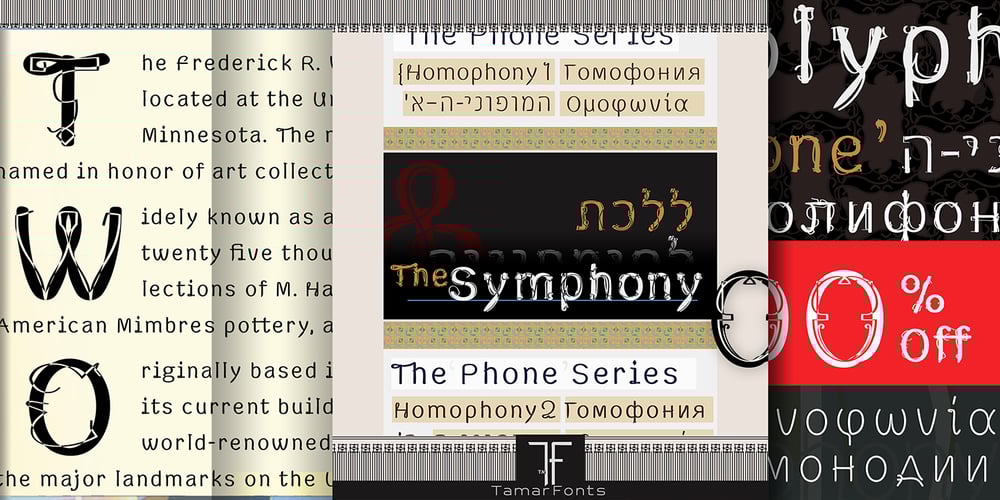
Phone Pro
Phone Pro font
Phone Pro Font Family was designed by Hillel Glueck and published by Tamar Fonts. Phone Pro contains 10 styles and family package options. “Relation Between Typology and Type Design”‘PRISTINE’; this font is—neither beautiful nor ugly, neither vigorous nor weak, neither traditional nor modern, neither serif nor sans serif, neither script nor printable, neither a text font nor a display font—it is rather all of the above, which makes it a more versatile typographic tool—[handwritten] characters that are well-suited for a wide variety of applications—from editorial design, [friendly] greeting cards… to branding, advertising, publicity and digital. Each glyph design combines its unique shapes and stylish ink-traps with parabolic curves. Each glyph design has been treated as an ‘individual character’—the way I would treat a breathing, living, vulnerable and courteous human being; looking after each and every character as if it was my only child — bringing to light the authenticity and uniqueness of each individual, as well as my objective to bring about peace and harmony between them all as a whole.Designed with the intention of harmonizing between four scripts — Latin, Cyrillic, Greek and Hebrew; the whole family has a comprehensive set of characters—in addition to the Latin letters, the Phone typeface also has a full set of characters for Vietnamese, partially extended Cyrillic, Greek and Hebrew (sold separately). The t_t ligature is something unique to Phone, as well as the t_z ligature, among others and extras. A distinctive trait of the Phone typeface, is a high x-height combined with relatively short ascenders.The Phone typeface is in a way evoking the feeling of some Gaelic font and of the [Egyptian] Papyrus font (by Chris Costello, though, not being based on neither of those), having an exotic and an exquisite look, under the category of “Soft Fonts & Friendly Faces”.Copyright Tamar Fonts/Hillel Glueck 2021ALL RIGHTS RESERVEDAny unauthorized distribution of my work is strictly prohibited, and will be prosecuted; do the right thing, and do not participate in the piracy of my typefaces; if you appreciate my work, then please pay for it and help me prosper — thank you!